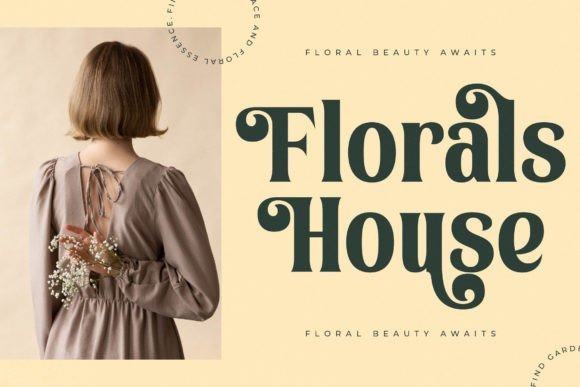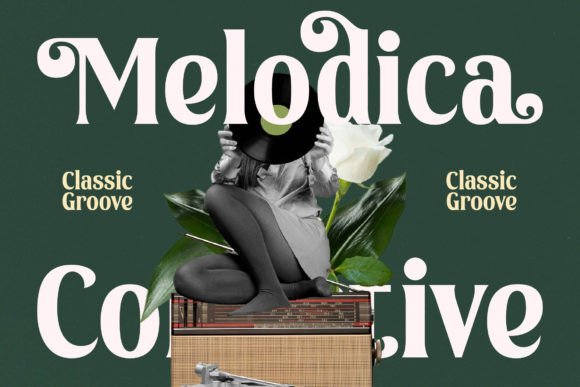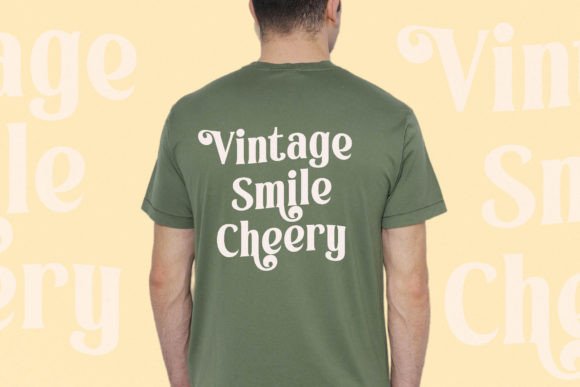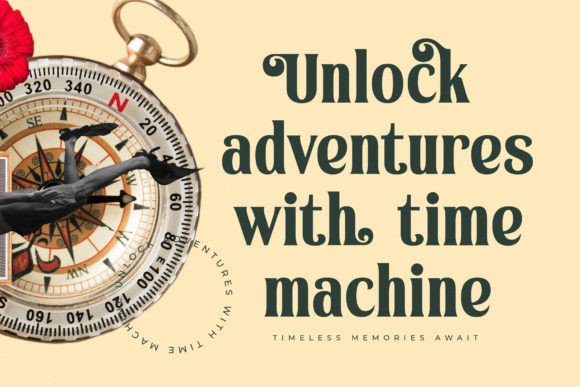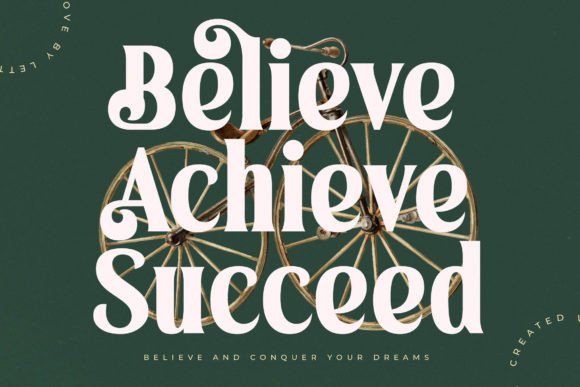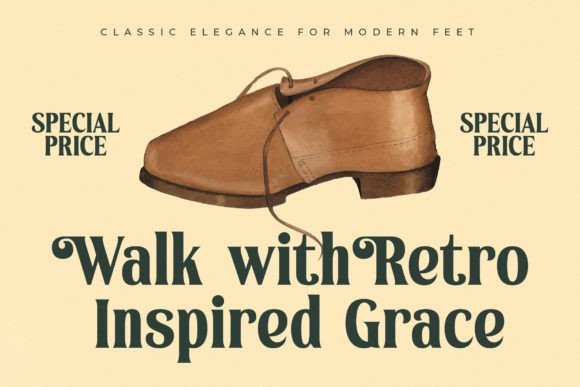
Introduction to Mystical Timeless Font
Have you ever found yourself rummaging through old trunks, dusty bookshelves, or antique stores, searching for that perfect design inspiration? I know I have. And sometimes, it’s not just about finding the right image or quote, but about discovering a font that speaks to your creative soul. For designers, the right font can make or break a project, and that’s where the Mystical Timeless Font comes in – a Luxury Serif font that’s about to revolutionize your creative projects.
With its high-quality design and versatility, the Mystical Timeless Font is a game-changer for any creative project. Whether you’re working on a logo, branding project, or product packaging, this font is sure to add a touch of luxury and sophistication. Plus, with a transparent background option, you can easily customize it to fit your design needs. And the best part? It’s available for free download, making it an invaluable design resource for any creative professional.
Key Features of Mystical Timeless Font
- Unique, elegant design with a touch of mysticism, perfect for creative projects and designs that require a high level of sophistication.
- Features a transparent background, making it ideal for use on various backgrounds and designs.
- Includes a wide range of characters, including uppercase and lowercase letters, numbers, and special characters, making it a versatile design resource.
- High-resolution font, suitable for use in print and digital designs, with a resolution of 300 DPI or higher.
- Designed to be easy to read and use, making it an excellent choice for various creative projects, from logos to typography-based designs.
Honest Review: Mystical Timeless Font
I recently stumbled upon the Mystical Timeless Font and was blown away by its unique style and versatility. As a designer, I’m always on the lookout for high-quality design resources to elevate my creative projects, and this font definitely fits the bill.
- ✨ Unique Style: The Mystical Timeless Font has a truly one-of-a-kind aesthetic that adds a touch of mysticism to any design. Its intricate details and ornate flourishes make it perfect for adding a sense of luxury and sophistication to your work.
- ✨ High-Quality: The font is crisp and clear, with a transparent background that makes it easy to overlay on any design element.
⚠️ However, I did find that the font can be a bit overwhelming if used in large quantities. Be sure to use it sparingly to avoid overwhelming your design.
Overall, I’m thoroughly impressed with the Mystical Timeless Font. Its unique style, high-quality design, and free download make it an excellent addition to any designer’s toolkit. Whether you’re working on a creative project or just need a versatile font to add some flair, this font is definitely worth checking out.
Introduction to Mystical Timeless Font
Mystical Timeless Font is a high-quality design resource ideal for creative projects. This font features a transparent background, making it perfect for overlaying on images or backgrounds.
Tips for Getting the Most Out of Mystical Timeless Font
To get the most out of Mystical Timeless Font, use it in combination with high-quality images and backgrounds. You can also experiment with different font sizes and colors to achieve the desired effect.
Common Use Cases for Mystical Timeless Font
Mystical Timeless Font is ideal for:
- Photography overlays and graphics
- Brand logos and identities